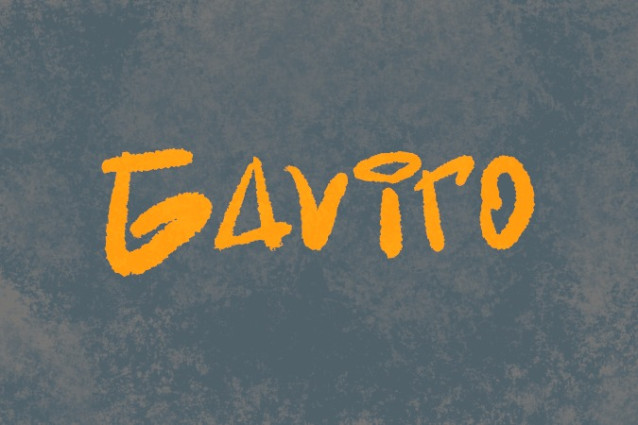
Gaviro Graffiti Font
Gaviro Graffiti font is a bold and energetic graffiti font that embodies the raw spirit of urban art. With its sharp edges and striking design, this font is perfect for projects that demand an edgy, street-inspired look.